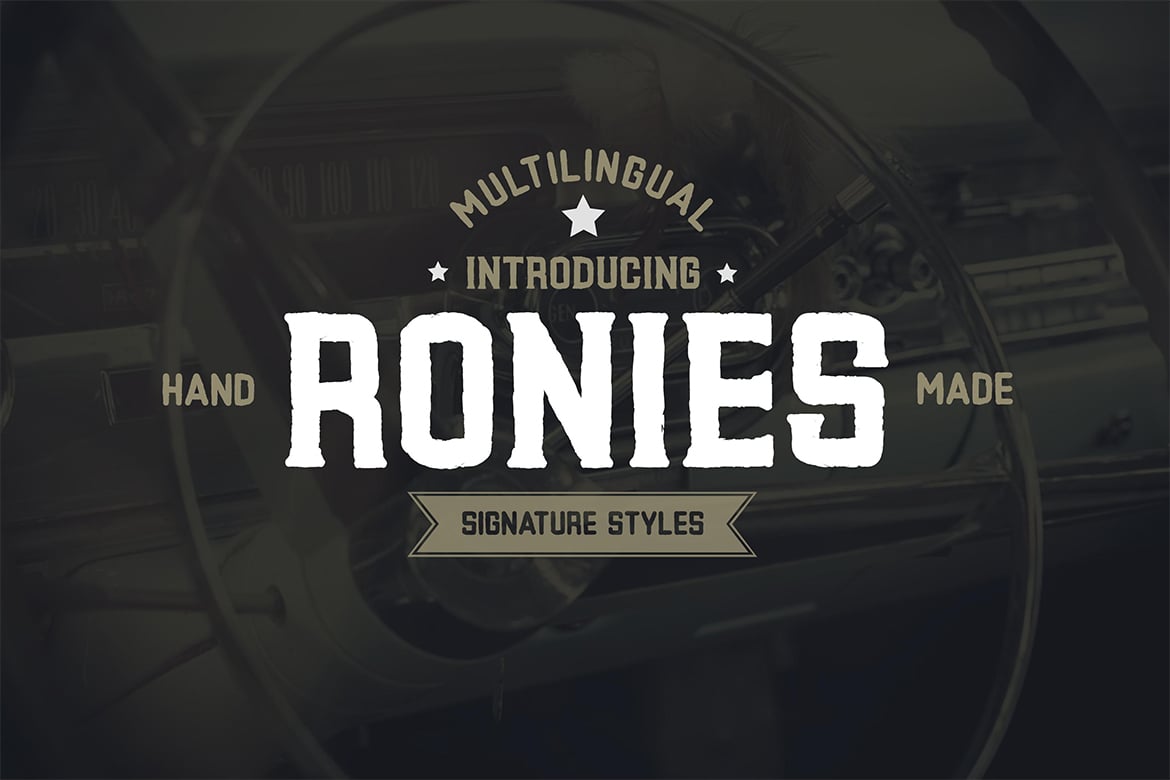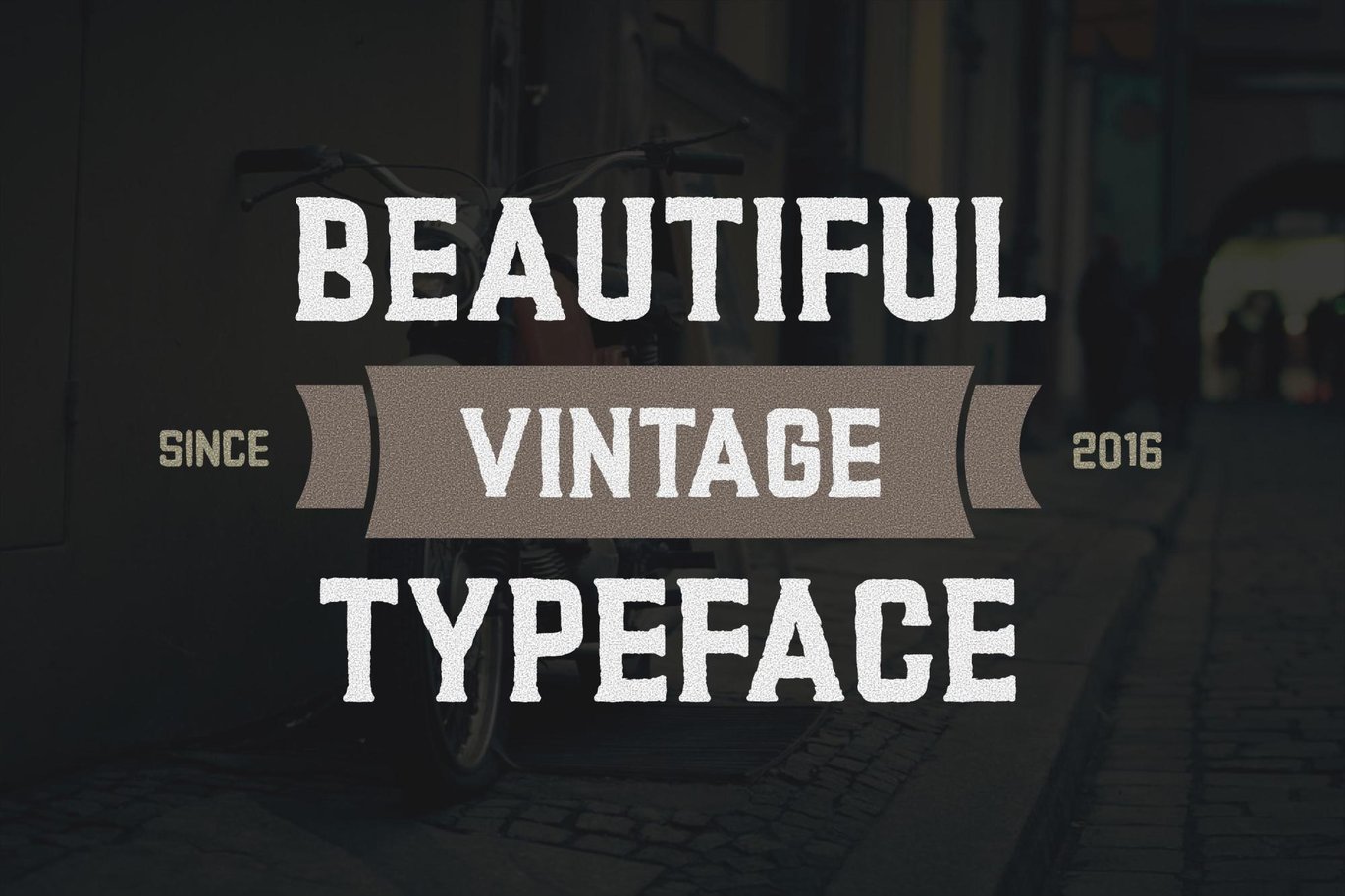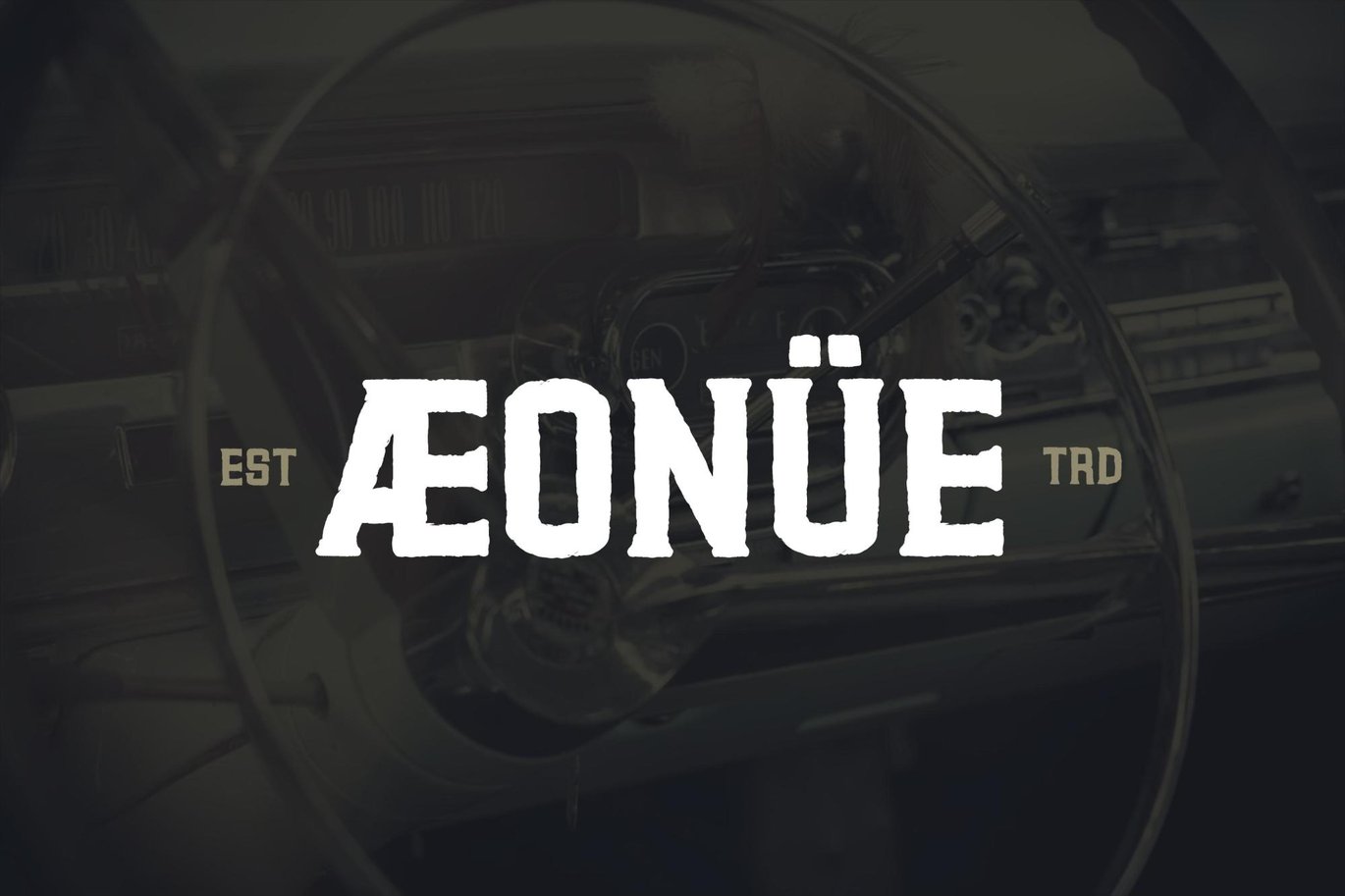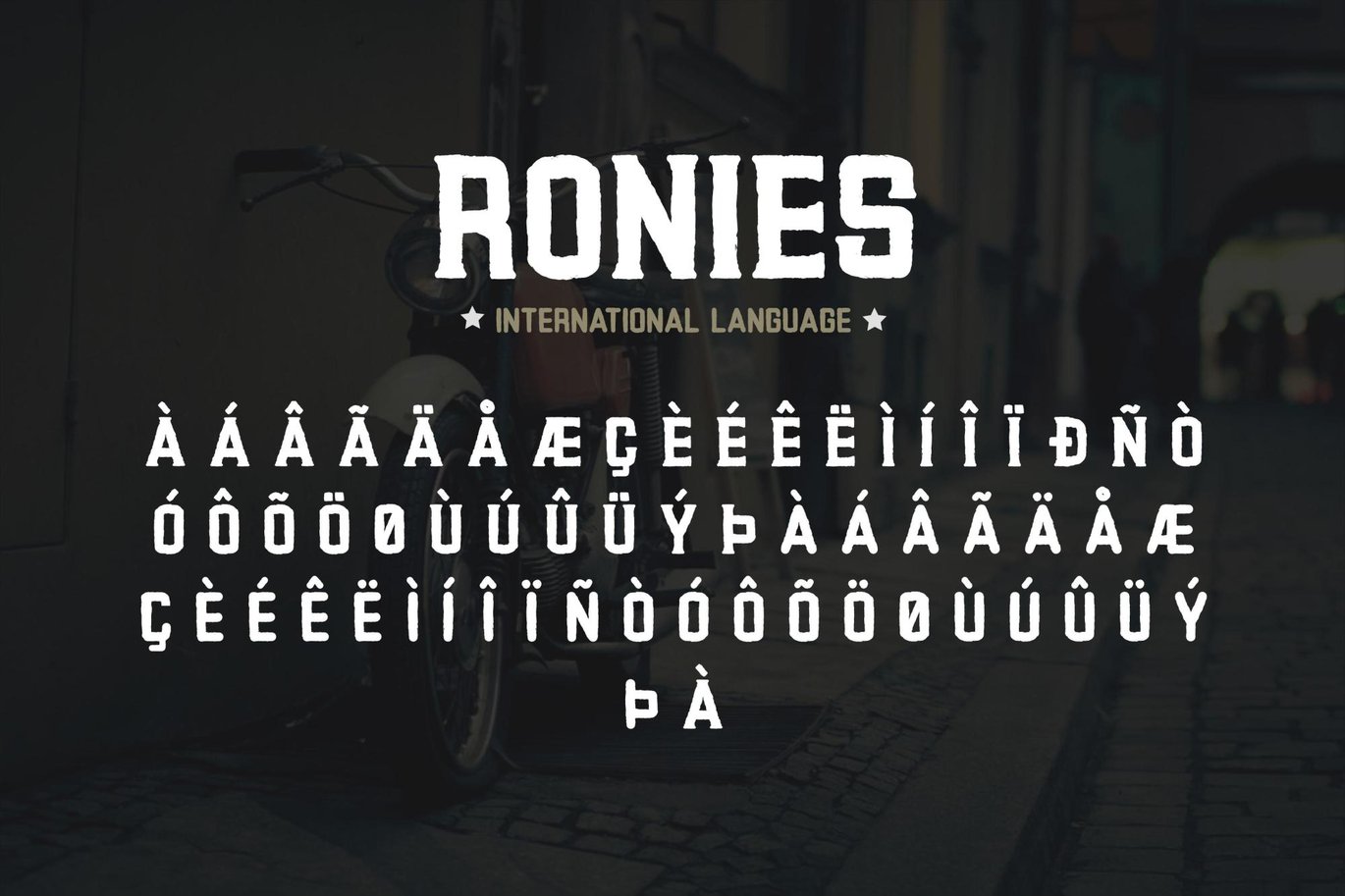
Ronies Vintage Font
Introducing Ronies! – A vintage, retro and awesome character! With different weights, it’s perfect for magazine layouts, invitations, headers, or even large-scale artwork.